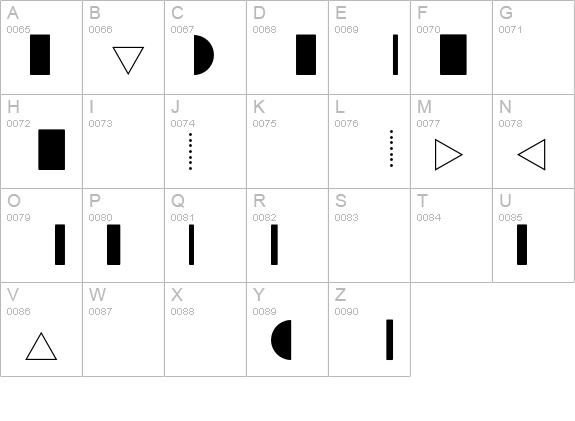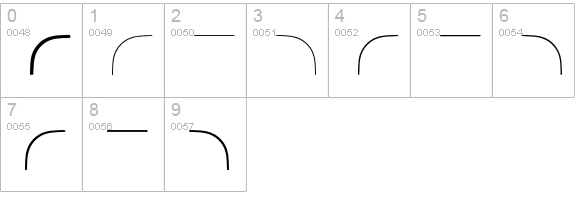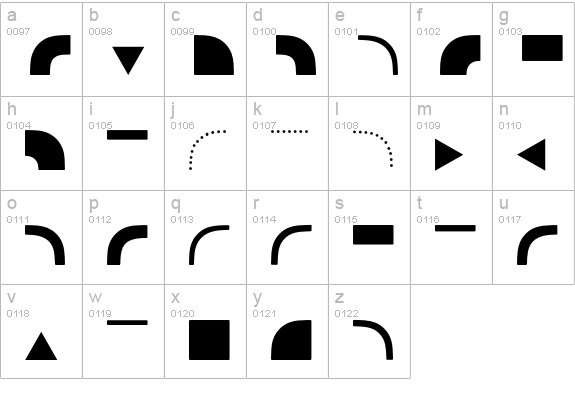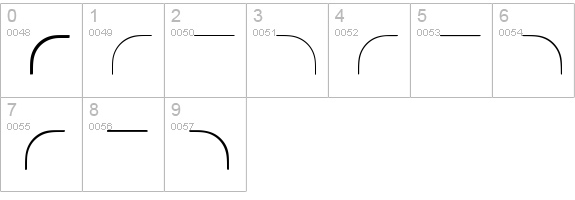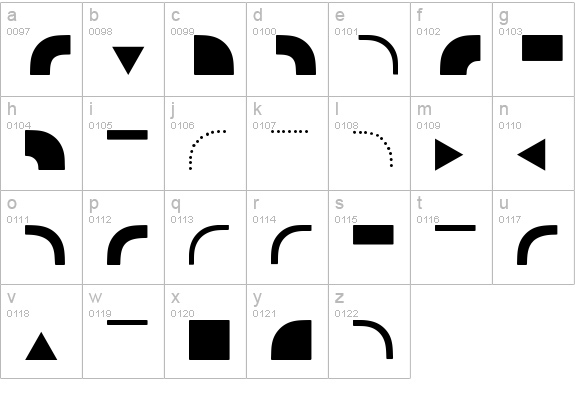
Runde Ecken 2 Font Details
Runde Ecken 2 font is a charming and modern typeface that combines sleek lines with rounded edges to create a unique and eye-catching design. Perfect for adding a touch of personality to your projects, this font is versatile and can be used for a variety of purposes, from branding to graphic design. What sets Runde Ecken 2 font apart is its playful yet sophisticated aesthetic, making it a great choice for anyone looking to make a statement with their typography. Whether you're creating a logo, designing a poster, or crafting a social media graphic, this font is sure to stand out and grab attention. Best of all, Runde Ecken 2 font is completely free to download at FontsMarket.com, allowing you to access this stylish typeface without breaking the bank. So why wait? Add a touch of flair to your designs with Runde Ecken 2 font today!